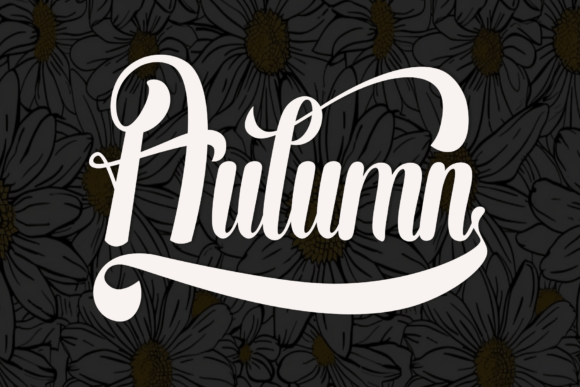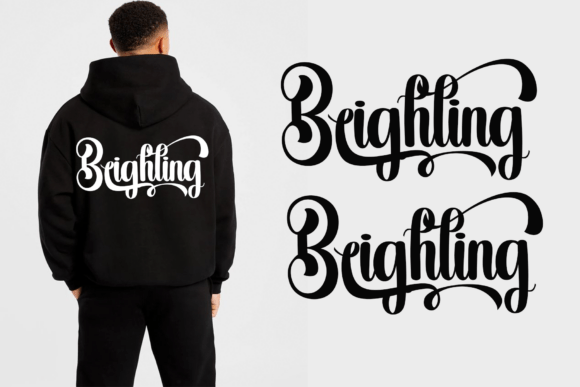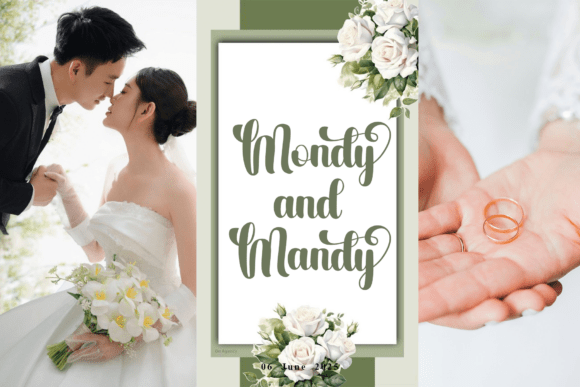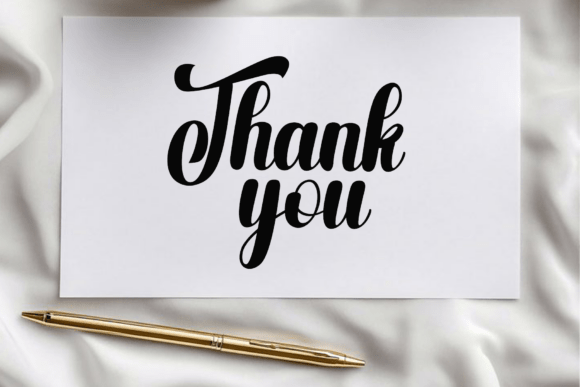
The Power of Branding Font: Elevate Your Design with a Timeless Classic
When it comes to creating a lasting impression, the right font can make all the difference. A well-crafted font can elevate your brand’s identity, convey your message, and leave a lasting impact on your audience. In this article, we’ll explore the world of Branding Font, a stylish handwritten font that embodies the essence of contemporary calligraphy.
What is Branding Font?
Branding Font is a beautifully designed handwritten font that exudes a sense of sophistication and elegance. Inspired by timeless classic calligraphy, this font boasts a contemporary atmosphere and impeccable form. With its balanced and varied design, Branding Font is perfect for enhancing the beauty of your projects.
Key Features of Branding Font
- Handwritten with love: Branding Font is a carefully crafted handwritten font that mimics the fluidity and expressiveness of traditional calligraphy.
- Contemporary twist: With its modern take on classic calligraphy, Branding Font is perfect for designers and crafters looking for a fresh and stylish font.
- Balanced and varied: The font features a range of characters, ensuring that your text remains legible and visually appealing.
- Impeccable form: Branding Font’s attention to detail and precision ensure that every letter and symbol is a masterpiece.
Why Choose Branding Font?
With so many fonts available, why should you choose Branding Font? Here are a few compelling reasons:
- Uniqueness: Branding Font’s distinctive style sets it apart from more generic fonts, ensuring your brand stands out from the crowd.
- Versatility: This font is suitable for a wide range of applications, from logos and branding to packaging and digital media.
- Ease of use: Branding Font is easy to read and works well in various contexts, making it perfect for designers and crafters.
How to Use Branding Font Effectively
To get the most out of Branding Font, consider the following tips:
- Pair with complementary fonts: Combine Branding Font with other fonts to create a harmonious and visually appealing design.
- Experiment with colors: Take advantage of Branding Font’s versatility by trying out different colors and textures.
- Pay attention to spacing: Ensure that your text is legible by adjusting the spacing between letters and lines.
Branding Font in the Design Process
Branding Font can play a vital role in the design process, helping you to:
- Establish brand identity: Use Branding Font to create a consistent visual language across your brand’s marketing materials.
- Enhance user experience: The font’s readability and aesthetic appeal can contribute to a more engaging user experience.
- Convey your message: Branding Font’s expressive nature allows you to convey your message with style and sophistication.
Branding Font is a powerful tool for designers and crafters looking to elevate their projects with a stylish and timeless font. With its contemporary atmosphere, impeccable form, and balanced design, this font is sure to leave a lasting impression. Whether you’re looking to establish a brand identity, enhance user experience, or simply add a touch of elegance to your design, Branding Font is the perfect choice.